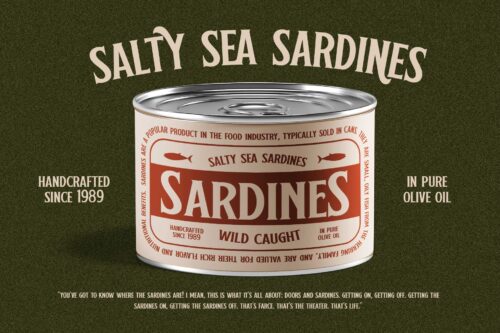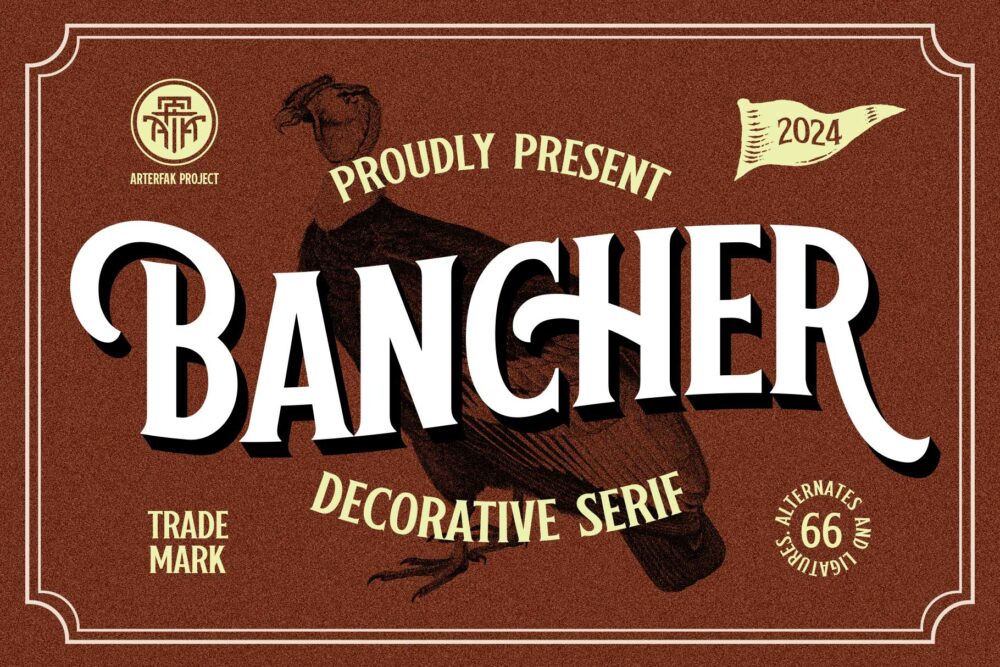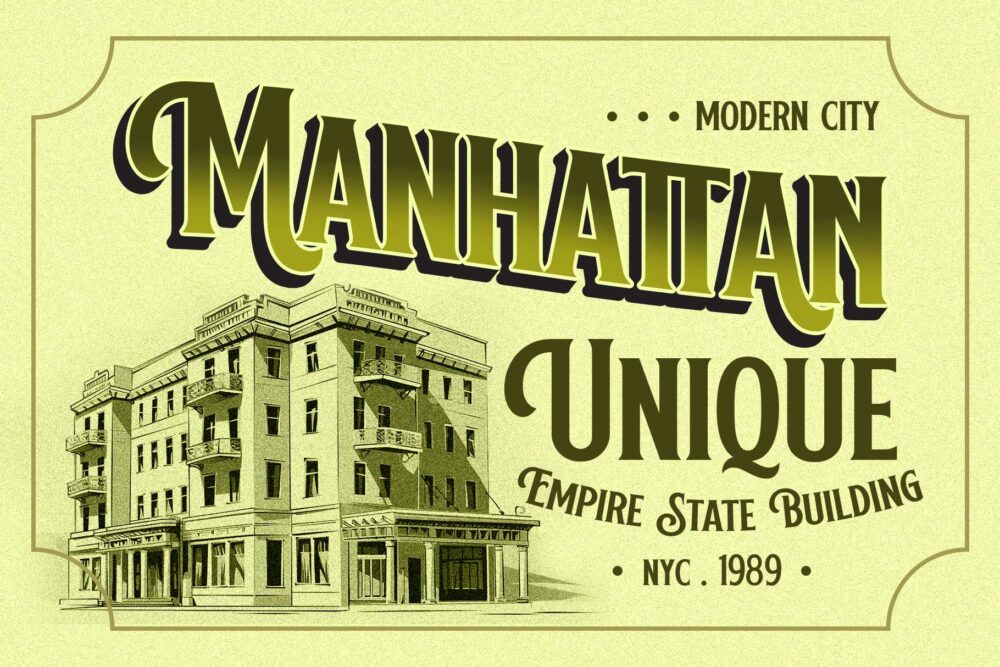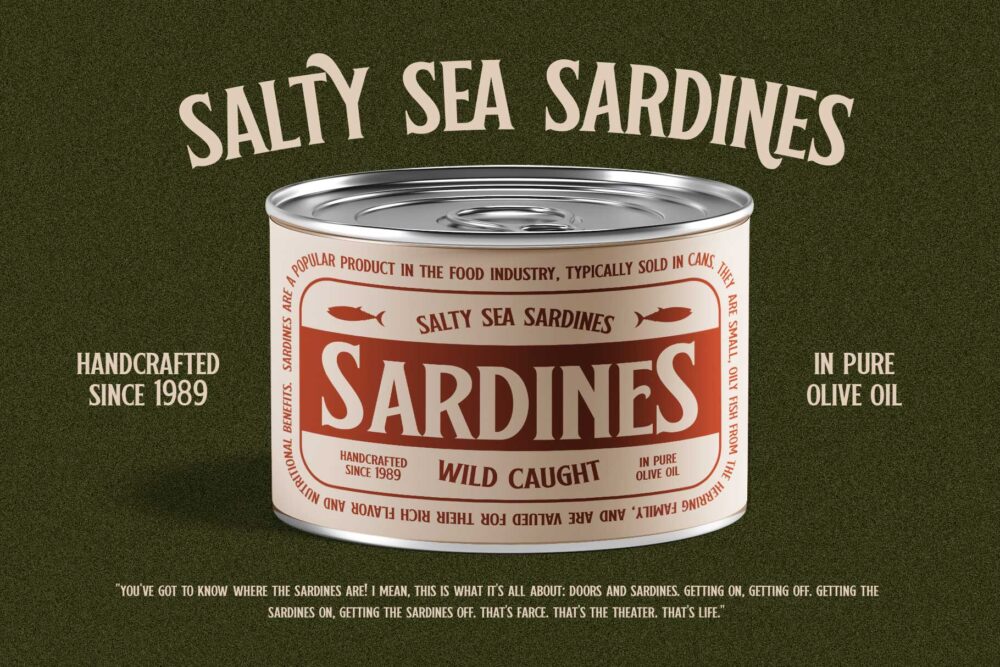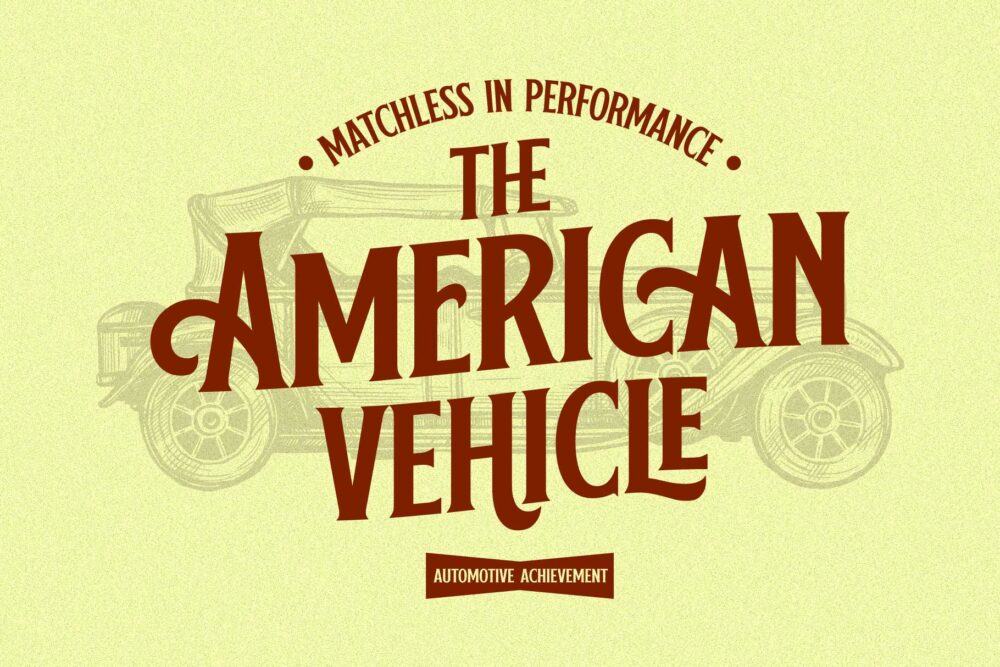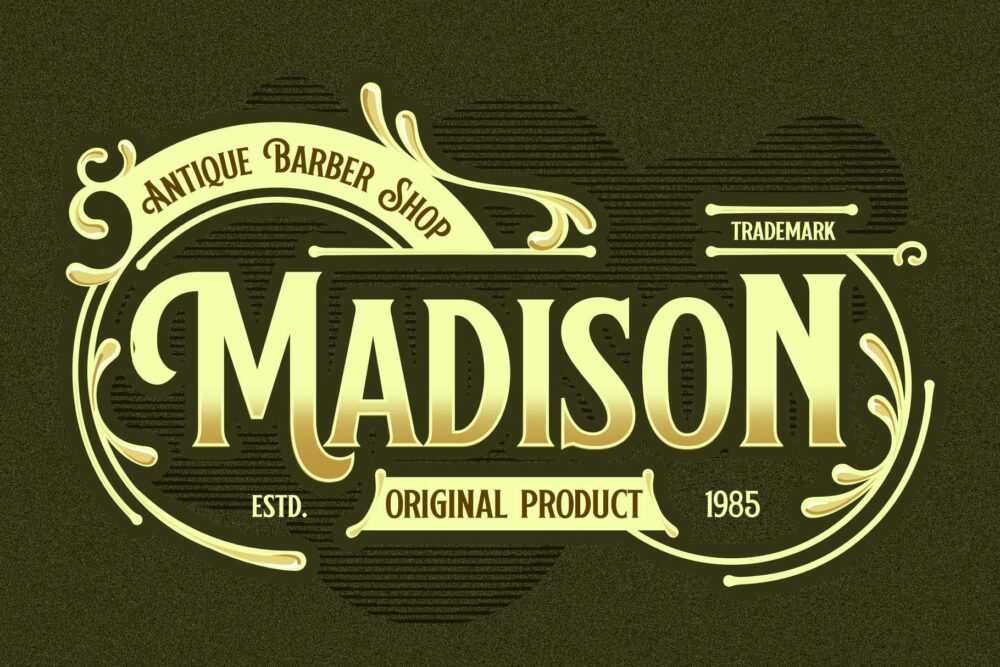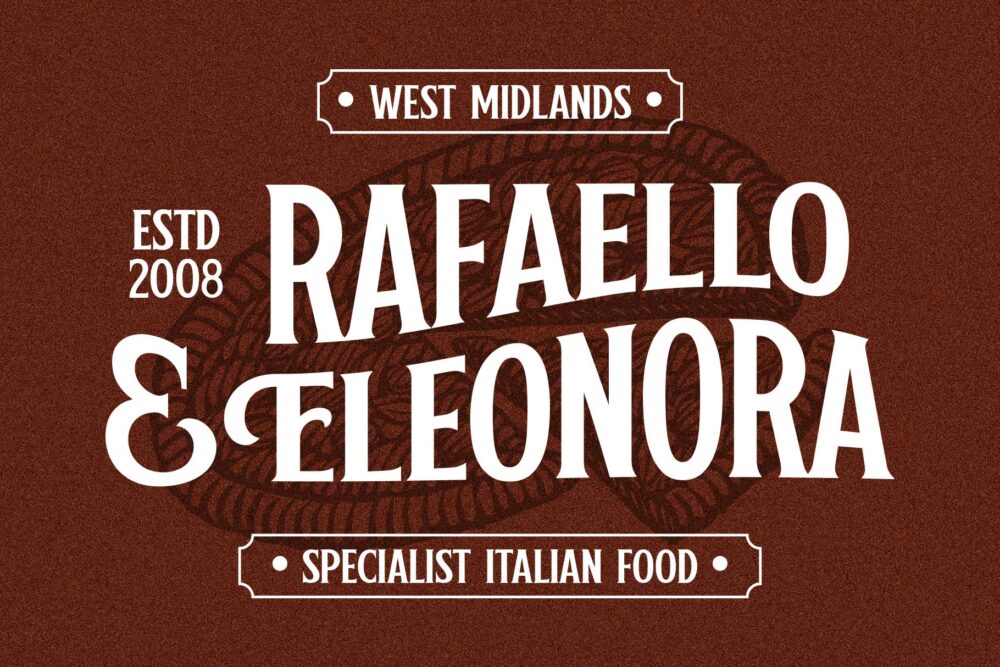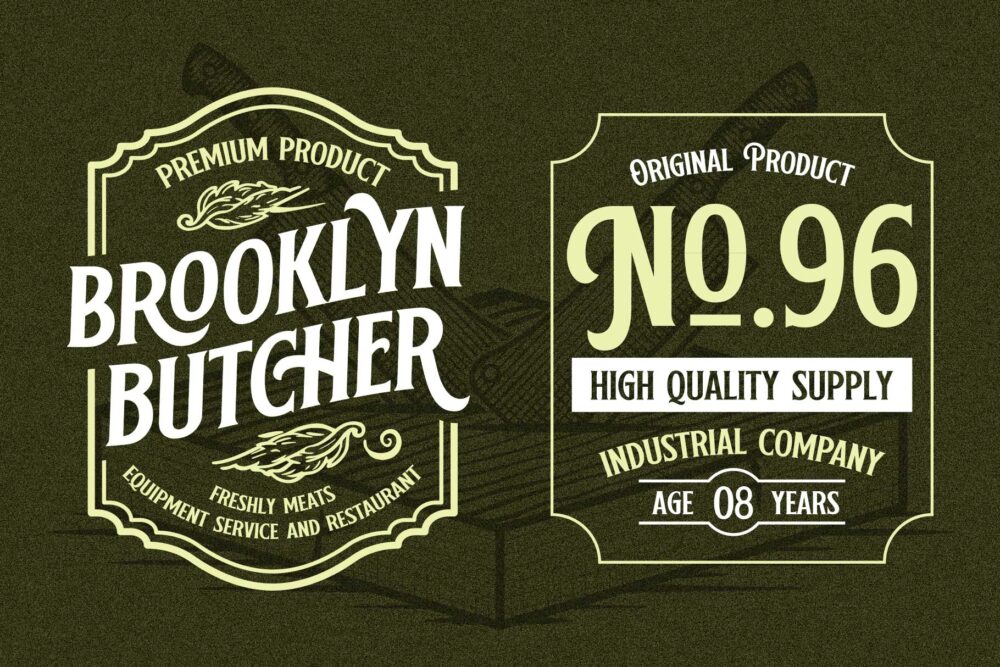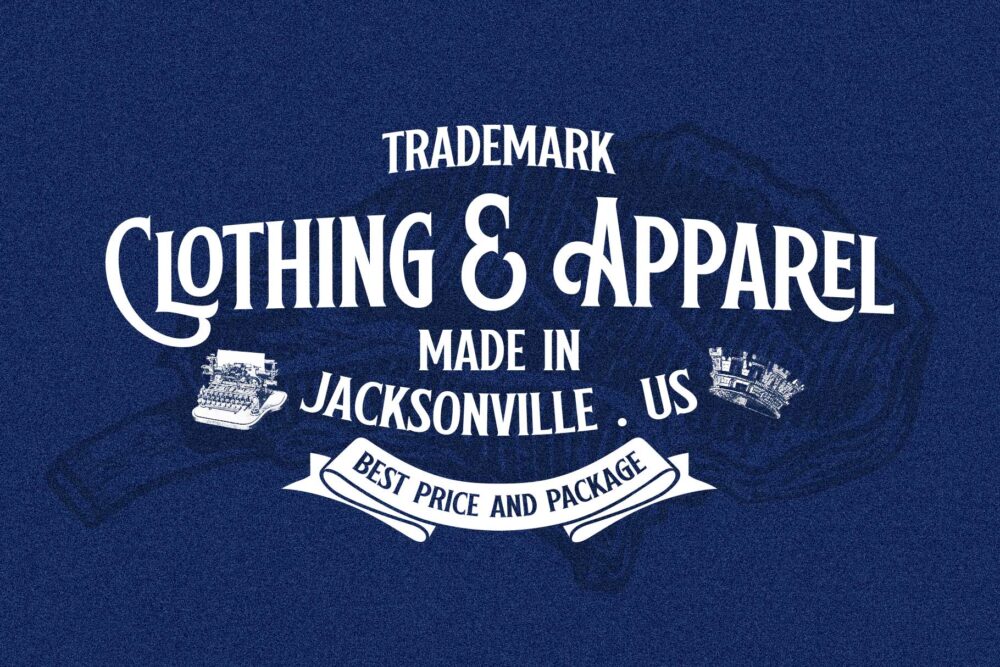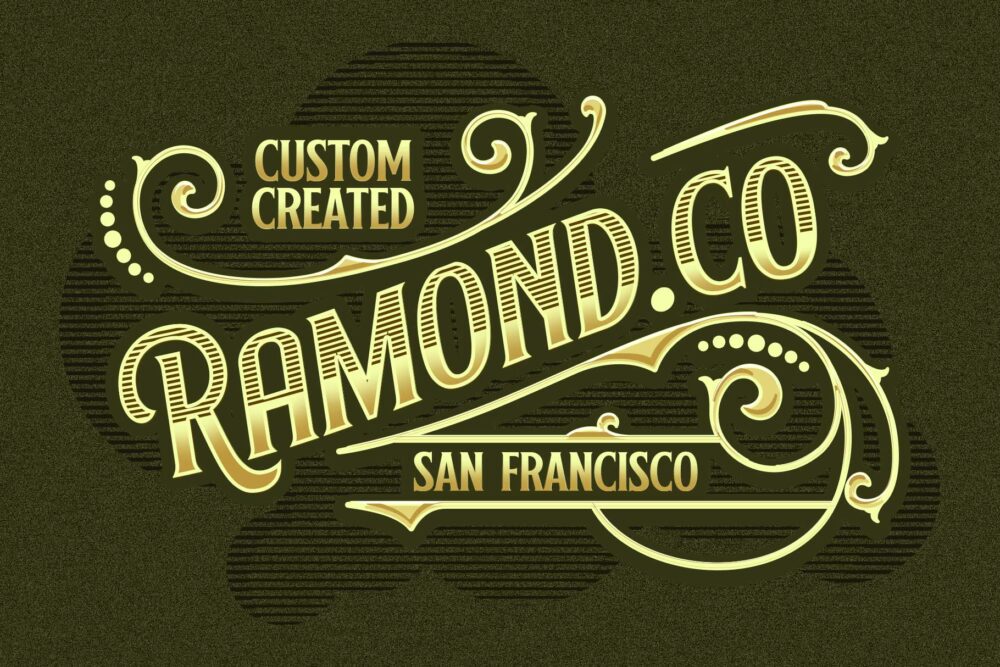
Bancher
Introducing “Banchers,” a vintage-inspired serif font with a wealth of alternate characters. Bold and unique serif condensed, this font blends the charm of classic handcrafted typography with a modern, elegant touch.
Banchers transports you to a nostalgic, old-school era, making it perfect for headlines, displays, logos, logotypes, posters, stickers, signage, apparel, packaging, labels, and much more.
• Stylistic alternates
• Ligatures